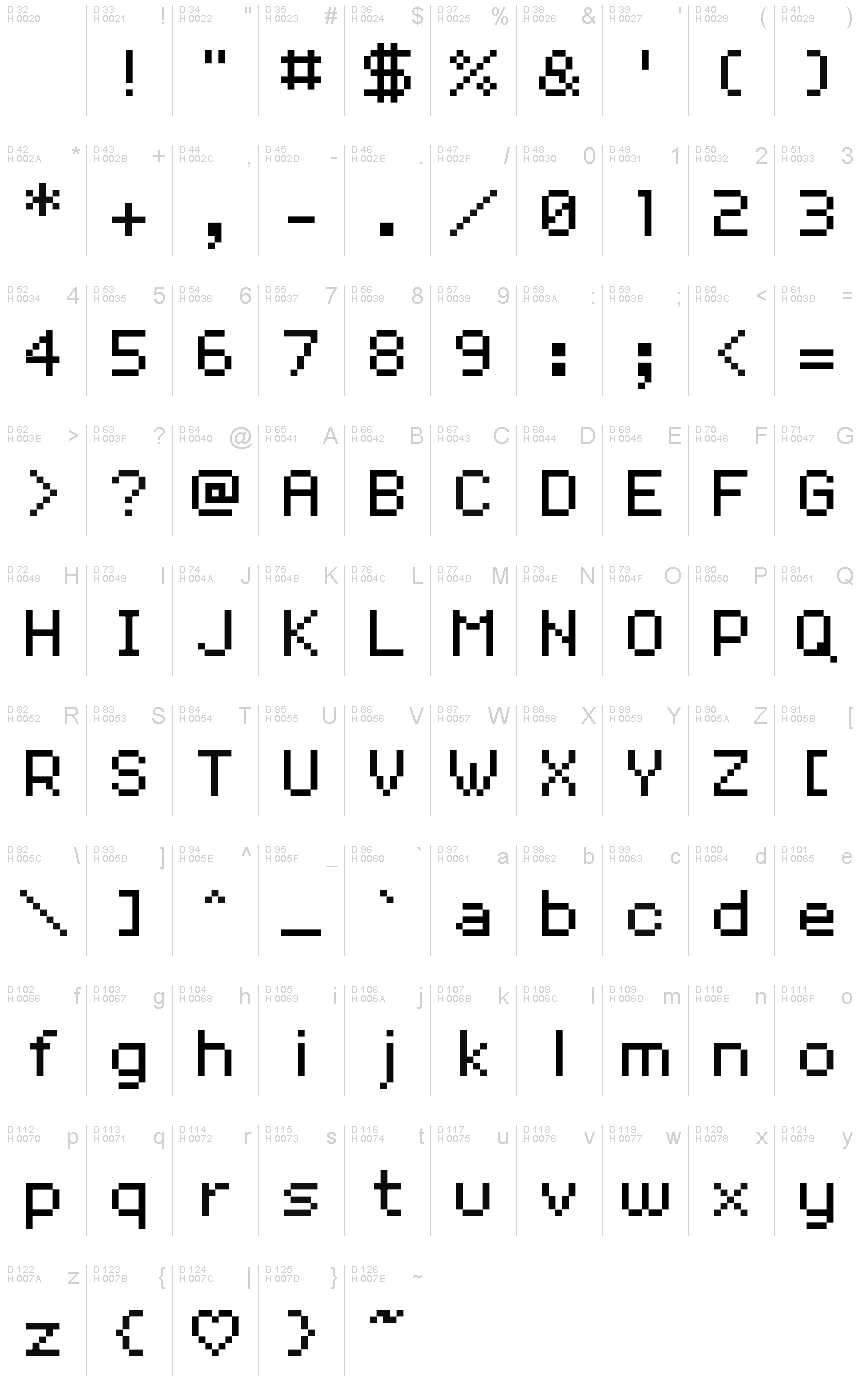
Volter (Goldfish)
Volter (Goldfish) emerges as a distinctive bitmap font that carries the nostalgic essence of the early digital era into modern design. Crafted by the creative cocoFabien, its pixelated style exudes a retro charm that is both playful and functional.
The font's aesthetic is rooted in an 8-bit landscape, where each character is meticulously constructed with a grid-like precision. This pixel-level attention to detail makes Volter (Goldfish) not only a nod to classic video games and computing but also a versatile tool for designers seeking to infuse their projects with a vintage yet timeless appeal.
Ideal for digital interfaces, game design, and any project aiming for that retro-tech vibe, Volter (Goldfish) offers clarity in its simplicity. Its blocky appearance stands out in headers and logos, while still being legible in smaller text blocks. Embrace the unique character of Volter (Goldfish) to make your creative work resonate with an air of digital nostalgia and contemporary cool.
The font's aesthetic is rooted in an 8-bit landscape, where each character is meticulously constructed with a grid-like precision. This pixel-level attention to detail makes Volter (Goldfish) not only a nod to classic video games and computing but also a versatile tool for designers seeking to infuse their projects with a vintage yet timeless appeal.
Ideal for digital interfaces, game design, and any project aiming for that retro-tech vibe, Volter (Goldfish) offers clarity in its simplicity. Its blocky appearance stands out in headers and logos, while still being legible in smaller text blocks. Embrace the unique character of Volter (Goldfish) to make your creative work resonate with an air of digital nostalgia and contemporary cool.